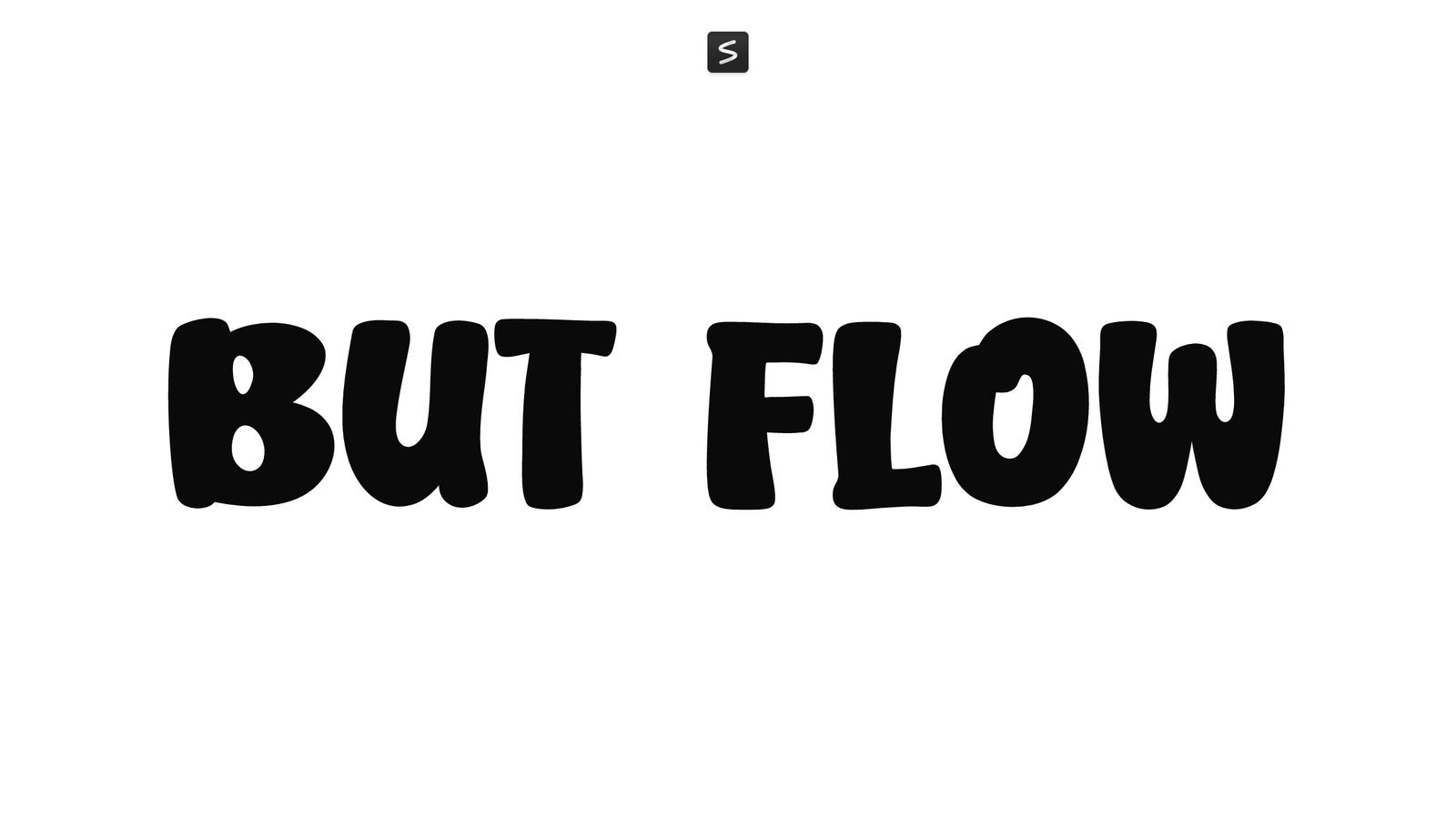
But Flow is a rounded, heavy-weight sans-serif font by Khurasan™ that trades sharp edges for gentle curves. The consistent stroke weight and spacious letterforms give it a straightforward, approachable character without feeling overly cute or childish.
The generous bowl shapes and soft terminals make it read well at large sizes, and the weight carries enough presence for headlines and posters. It sits comfortably between playful and functional, working for anything that wants to feel friendly without resorting to gimmicks.
Use it for packaging, branding, social media graphics, or any project where you need legible, likeable lettering. But Flow works as a workhorse display font that doesn’t demand much fuss.